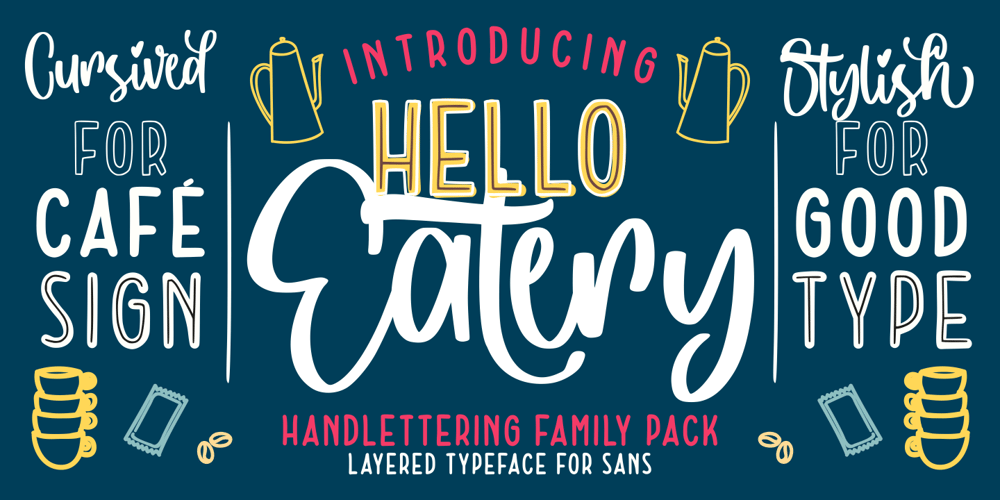
Hello Eatery Family Font Family was designed by Risman Ginarwan and published by Garisman Studio. Hello Eatery Family contains 4 styles and family package options. Introducing Hello Eatery – Handlettering PackHello Eatery combines attractive curves with a fresh handlettering starter pack; delivering a stylish script and sans serif which is guaranteed to add an eye-catching appeal to your logo designs, brand imagery, quotes, product packaging, merchandise & social media posts. All Caps letters for Hello Eatery Sans Serif: Hello Eatery One, Hello Eatery Two, Hello Eatery Three & Hello Eatery Script